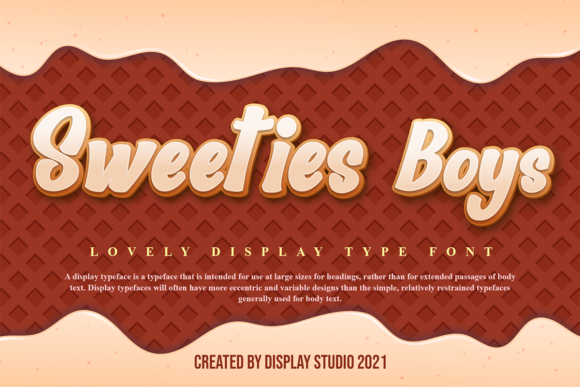
Unleash the magic of Sweeties Boys Font, a display-type font that captivates the senses with its playful charm. Designed by the talented DisplayStudio_, Sweeties Boys is a delightful choice for those seeking a touch of whimsy in their designs.
Step into a world where letters dance with grace, forming captivating logos, invitations, and greeting cards that leave a lasting impression. With its meticulously crafted details and multilingual capabilities, Sweeties Boys adds a touch of elegance to any project.
Experience the endless possibilities as you explore the style variations of Sweeties Boys. Each variation exudes its own unique personality, allowing you to tailor your designs to perfection. Watch as your words transform into vibrant expressions, conveying messages with a charm that captivates hearts.
Sweeties Boys is more than just a font; it's an artistic journey that invites you to embrace creativity and express yourself in ways you never thought possible. Let your imagination soar as you witness the fusion of beauty and functionality in every character.
With Sweeties Boys, you'll discover a newfound love for typography. Its versatility knows no bounds, seamlessly adapting to a multitude of design projects. From whimsical illustrations to eye-catching headlines, Sweeties Boys brings a spark of life to every creation.
Don't settle for ordinary fonts. Embrace the extraordinary with Sweeties Boys, and unlock a world of design possibilities. Let your imagination run wild and create masterpieces that leave a lasting impression.